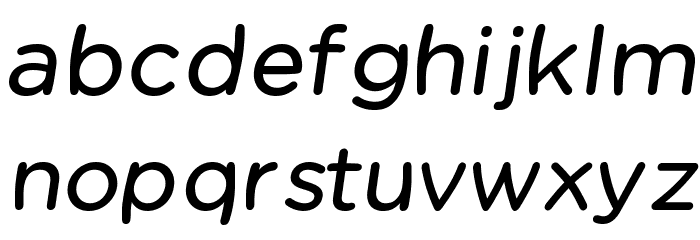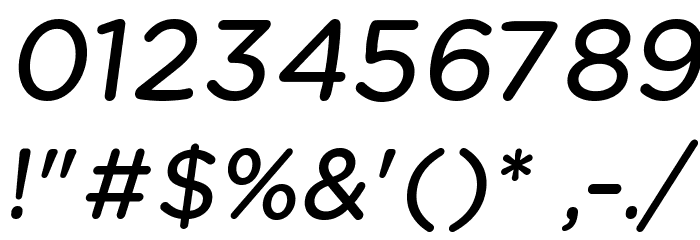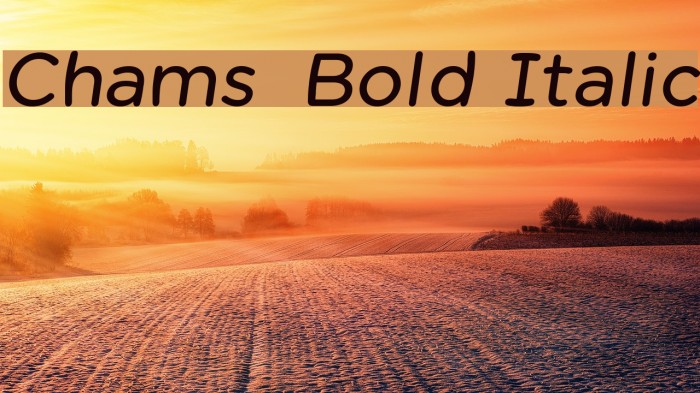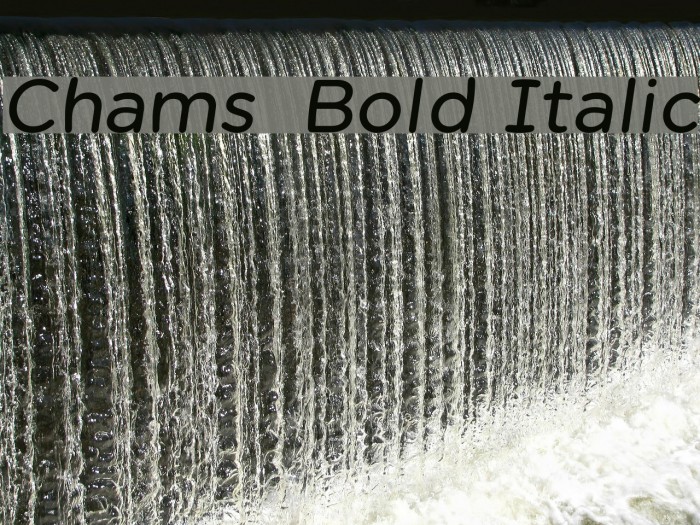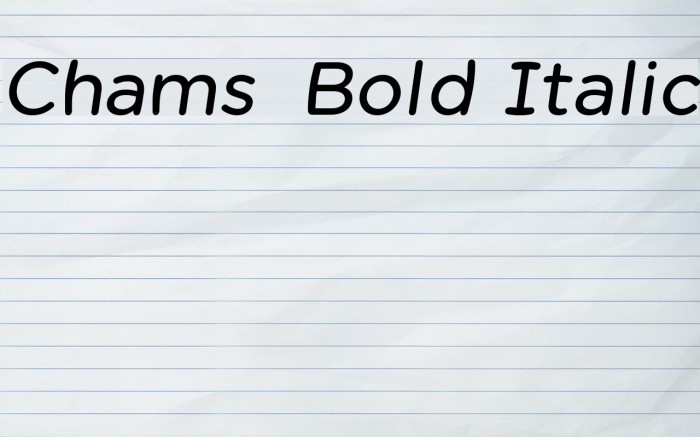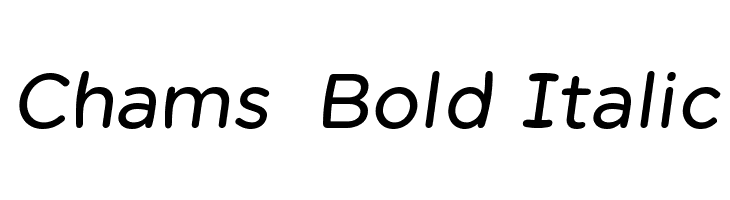
Chams Bold Italic Font
This font exhibits a modern and sleek design with a bold and italicized style. The characters are slightly rounded, giving them a friendly and approachable appearance. The uppercase and lowercase letters maintain a consistent flow, with smooth curves and a slight slant that enhances readability. The numerals are clear and distinct, matching the overall aesthetic of the alphabet. Special characters are well-integrated, maintaining the font's cohesive look. The overall impression is one of contemporary elegance, suitable for a variety of digital and print applications.
A modern, bold, and italicized font with rounded characters and a sleek design.
- Proposed Projects: Ideal for branding, advertising, digital media, and editorial design projects.
- Use Case: Headlines, Logos, Digital media